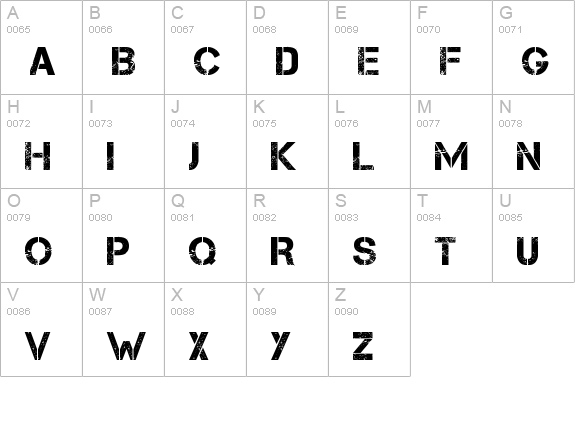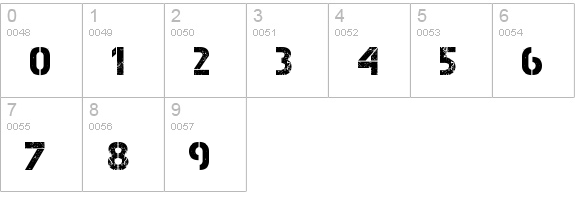
WordMean Font is a free for personal use font in the Modern > Stencil category. It has been downloaded 129 times and is available for Windows, Mac and Linux.
Introducing WordMean Font, a captivating and versatile typeface that will bring a touch of elegance to your creative projects. This exquisite font is designed with meticulous attention to detail, ensuring every curve and stroke is impeccably crafted. WordMean Font is a perfect blend of sophistication and modernity, making it suitable for a wide range of design applications. Whether you're working on a logo, website, branding materials, or any other creative endeavor, this font will effortlessly elevate your work to new heights. With its clean and legible letterforms, WordMean Font offers excellent readability across various media and sizes. Its balanced proportions and carefully designed glyphs create a harmonious visual rhythm, capturing attention and leaving a lasting impression. But what truly sets WordMean Font apart is its versatility. From sleek and contemporary to bold and expressive, this font can easily adapt to suit any design concept or aesthetic. It effortlessly conveys a sense of professionalism, making it an ideal choice for corporate presentations, business cards, and professional documents. And the best part? WordMean Font is available for free! That's right, you can download this exceptional font without spending a dime. Simply head over to FontsMarket.com and have access to this incredible typeface. Now, you have the opportunity to add a touch of elegance and refinement to your projects without breaking the bank. In conclusion, WordMean Font is a must-have for any designer or creative professional looking to make a lasting impact. With its stunning design, versatility, and the fact that it's freely available to download at FontsMarket.com, there's no reason not to give it a try. Elevate your designs and captivate your audience with WordMean Font today!